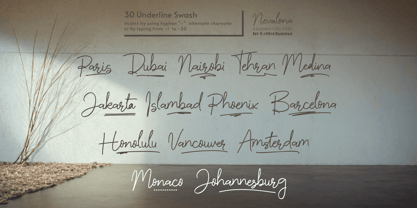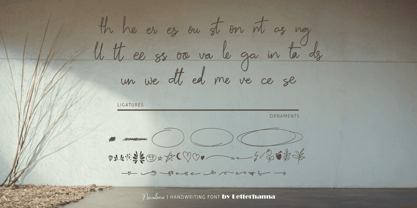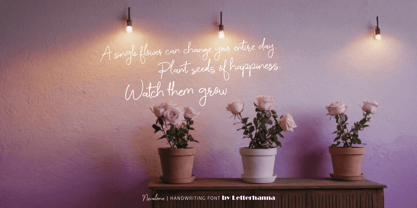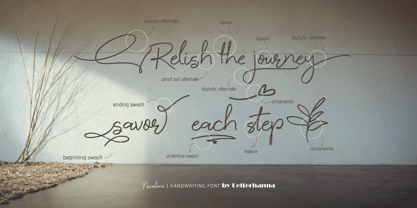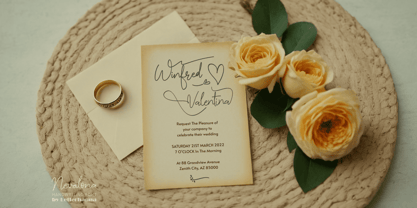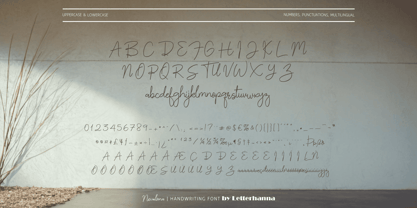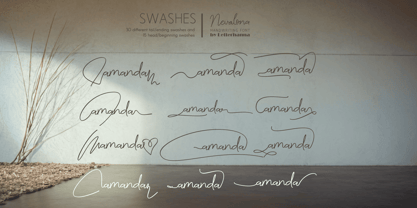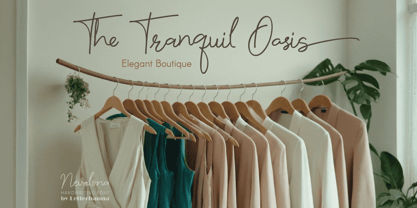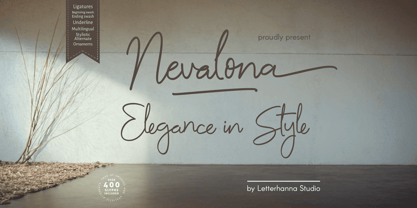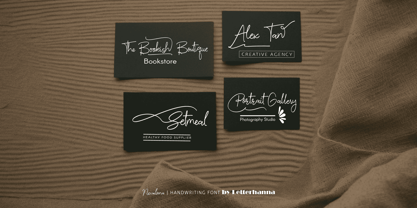
Nevalona
by Letterhanna Studio
The Nevalona Font Family was designed by Rinaldo Hasibuan and published by Letterhanna Studio. Nevalona contains 1 styles. More about this family
Introducing Nevalona, a beautifully crafted handwriting script font that blends elegance with a modern touch. With its smooth, flowing strokes and natural penmanship, Nevalona captures the essence of effortless sophistication, making it perfect for branding, invitations, logos, and creative projects. Let your words shine with a font that feels both personal and timeless.
Designers: Rinaldo Hasibuan
Foundry: Letterhanna Studio